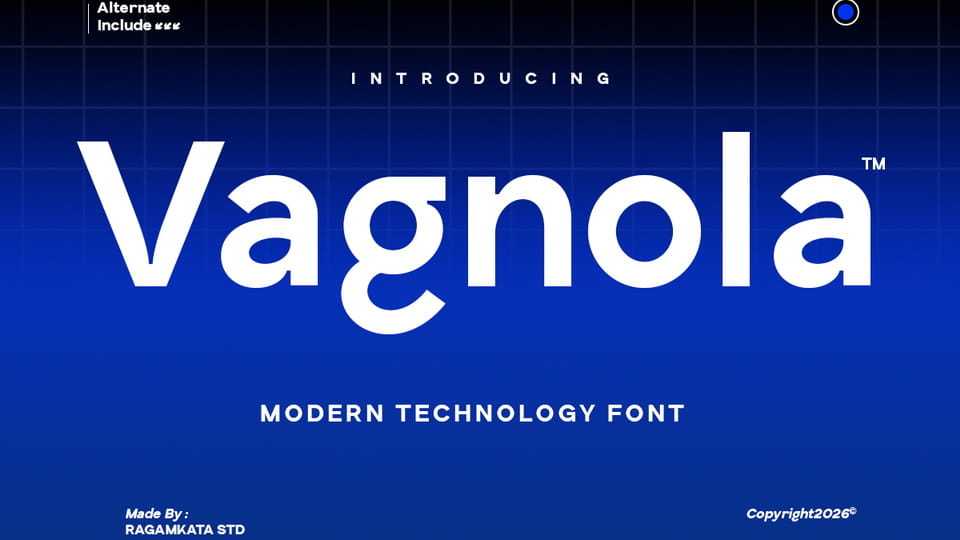
Download Vagnola font, a modern technology typeface designed to deliver a clean, futuristic, and high-tech visual identity, with its geometric structure, sharp edges, and precise proportions, this font reflects innovation.